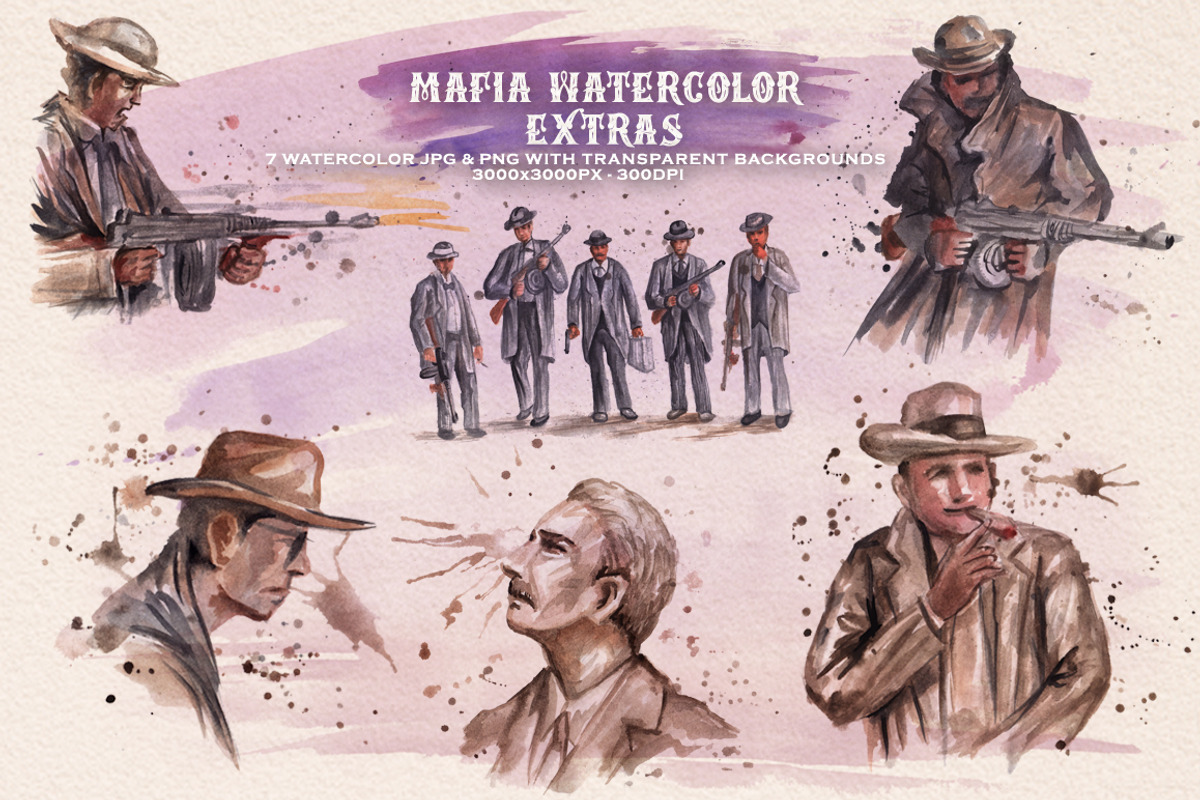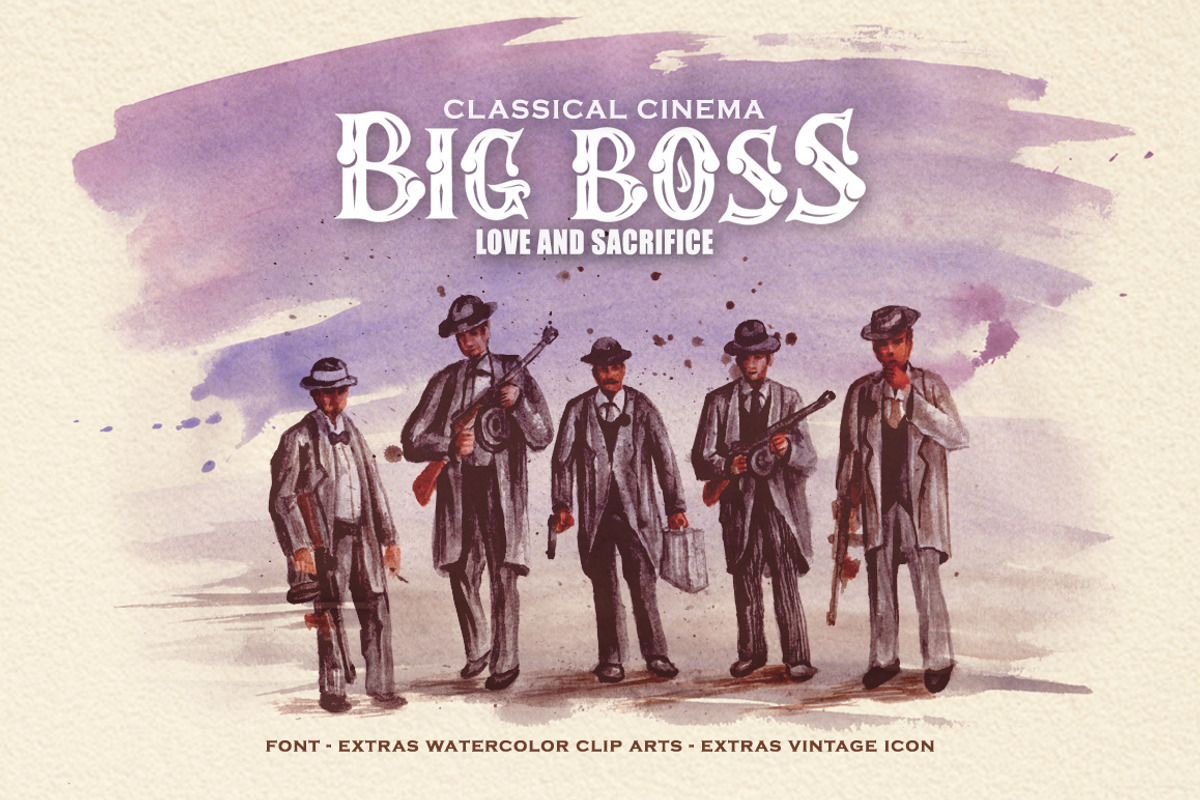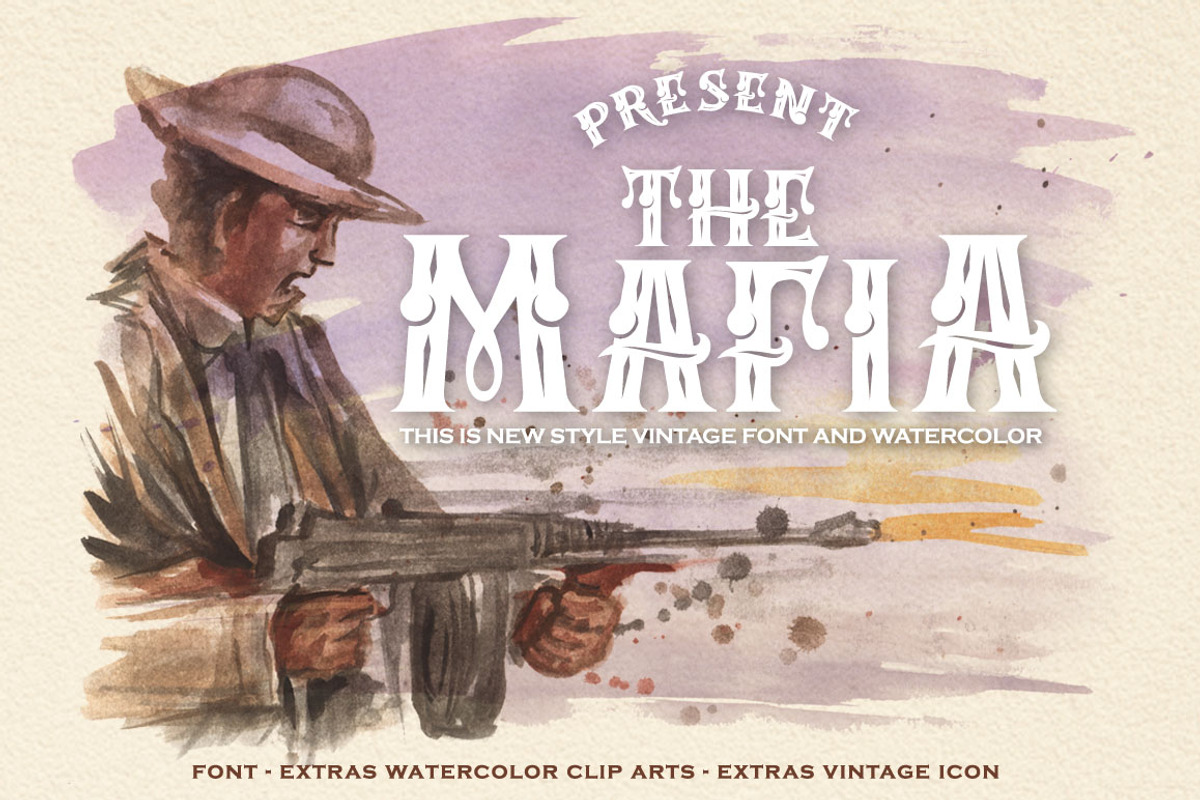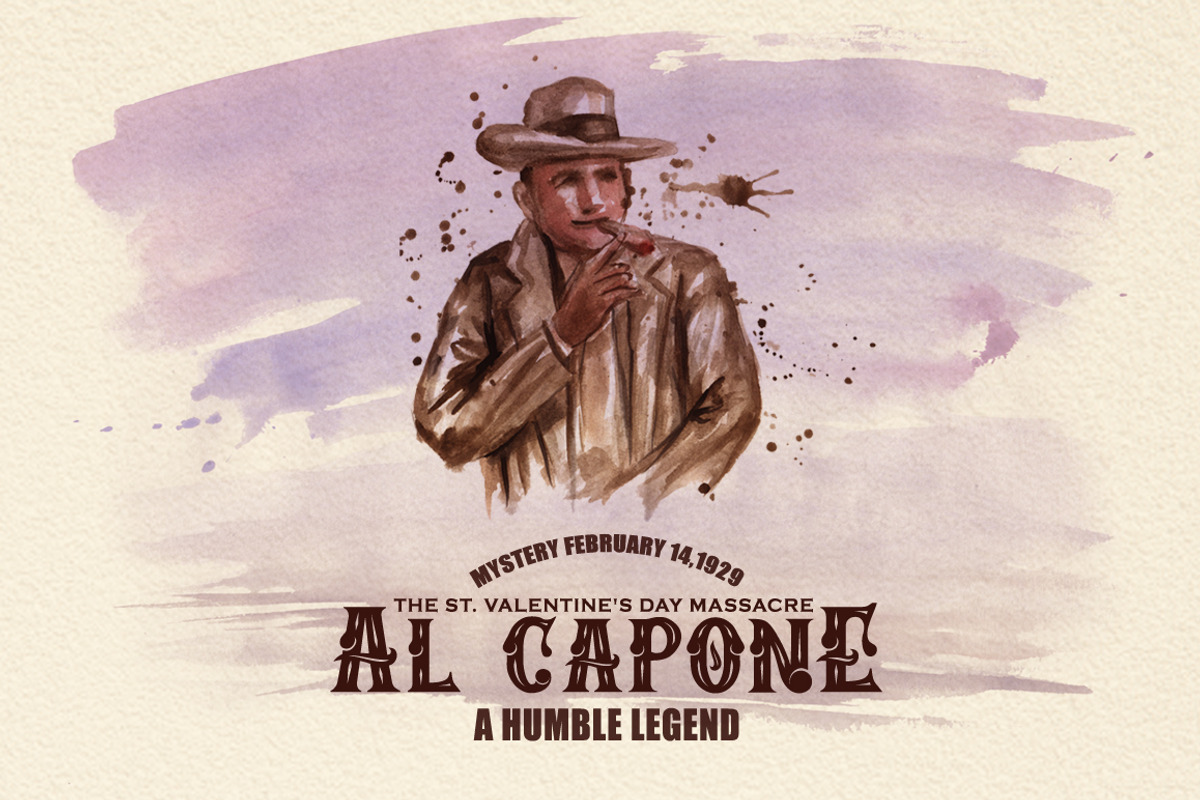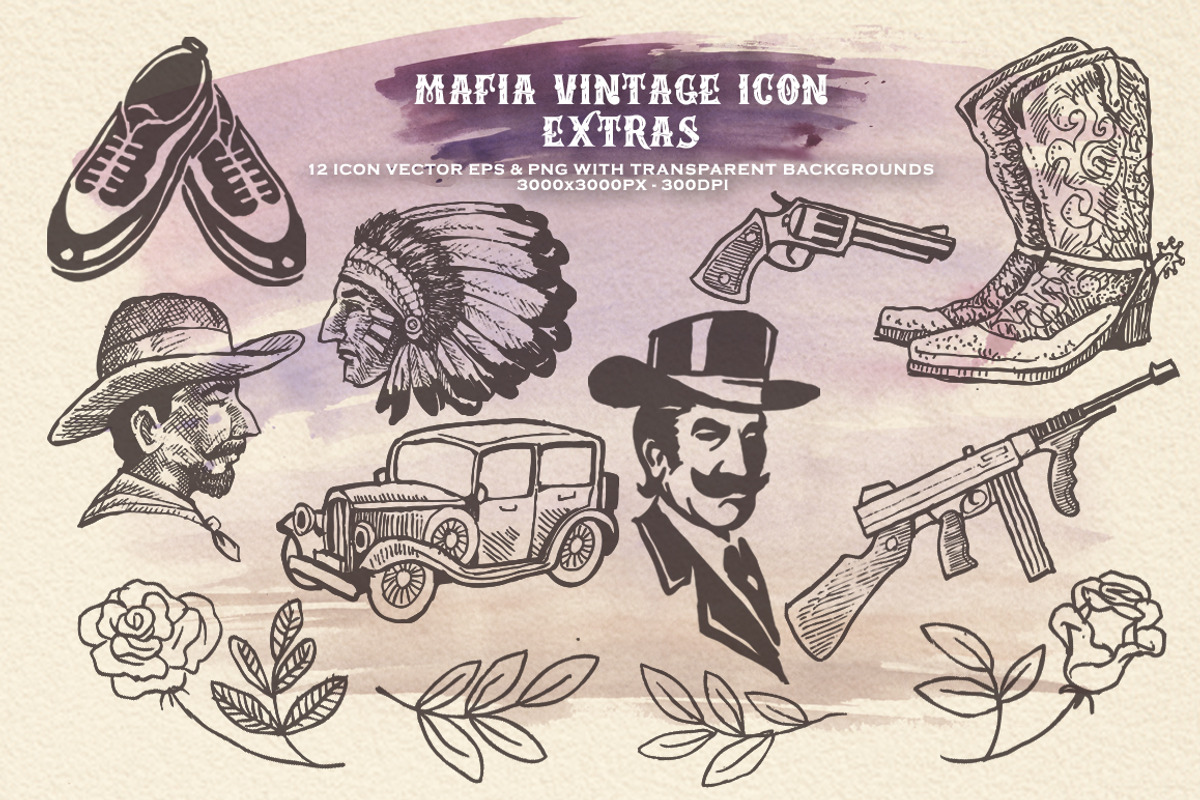
Mafia Font
This is a classic MAFIA font and is inspired by mafia movies of journey. MAFIA is a hand-crafted font, inspired too by classic poster and classic novel book cover, I mix with extras watercolor and vintage icon vector.
MAFIA comes with capital letters, lowercase letters, numbers, punctuation marks and so many variations on each character including common opentype and also additional to let you customize your design. Perfect for use for Logotype, Letterhead, Poster, Apparel Design, Label and others.